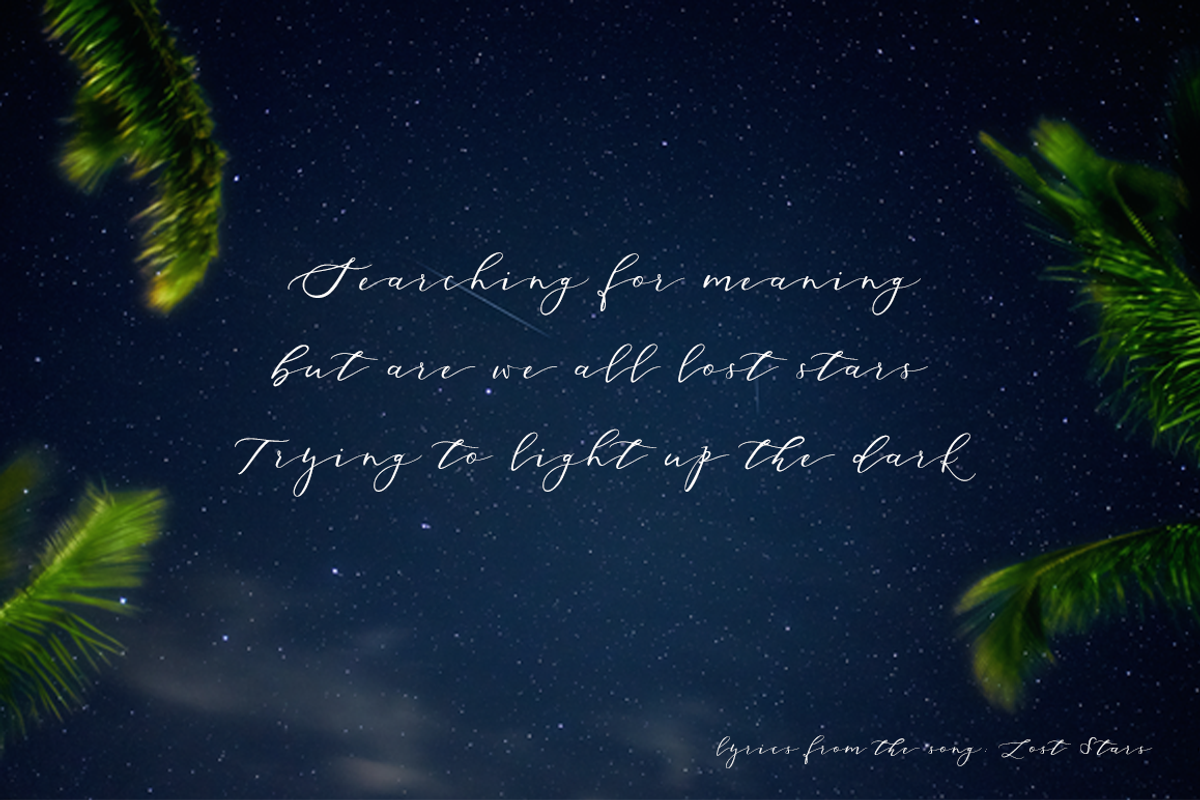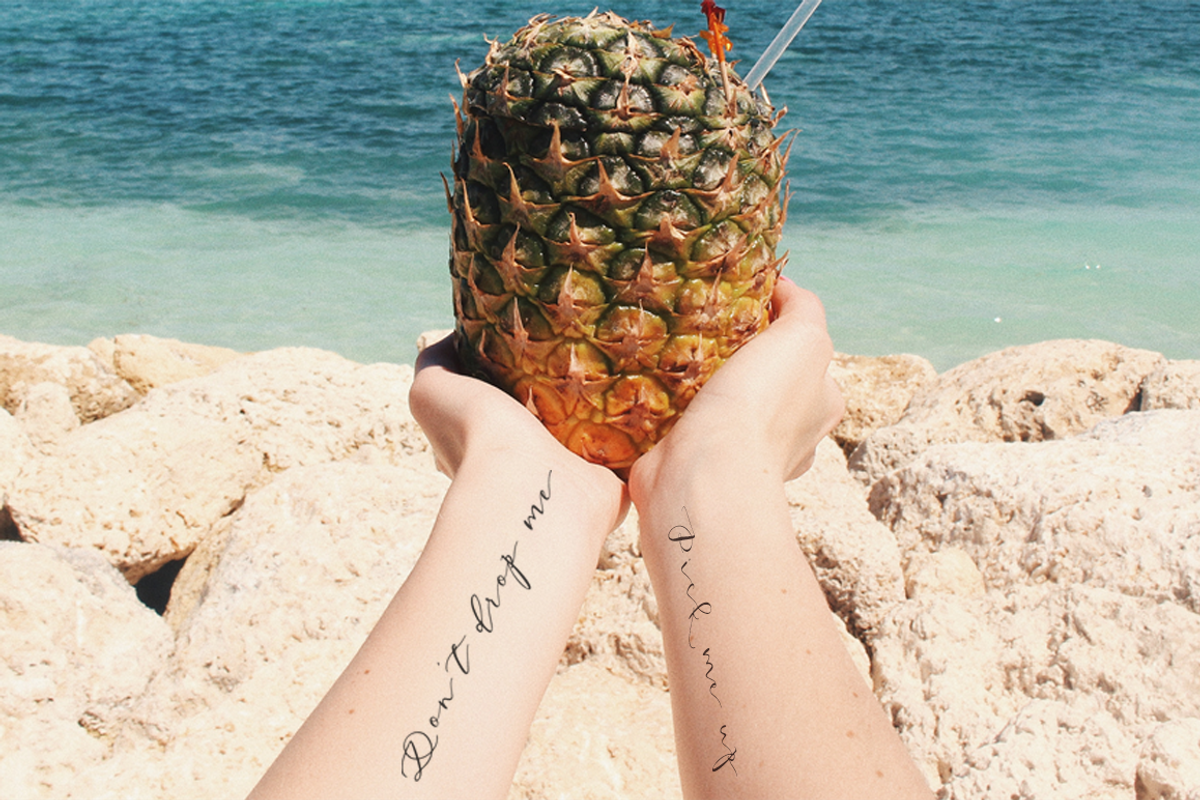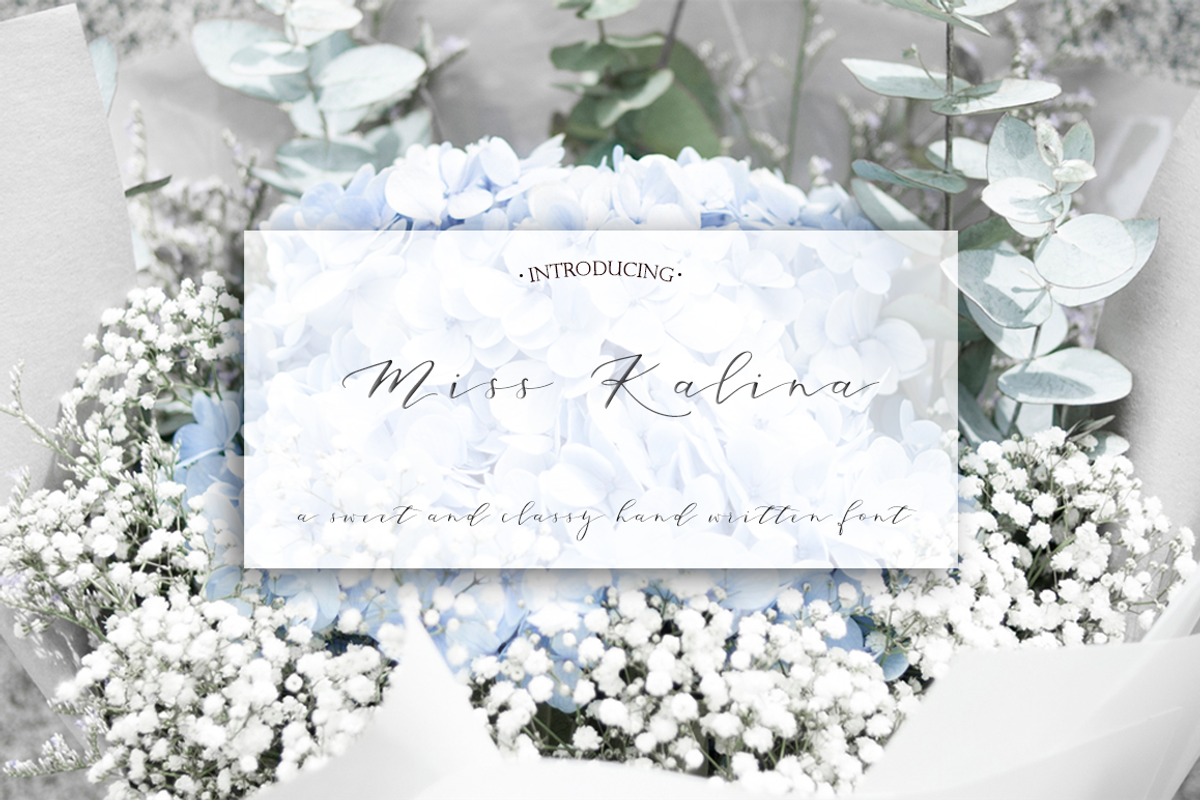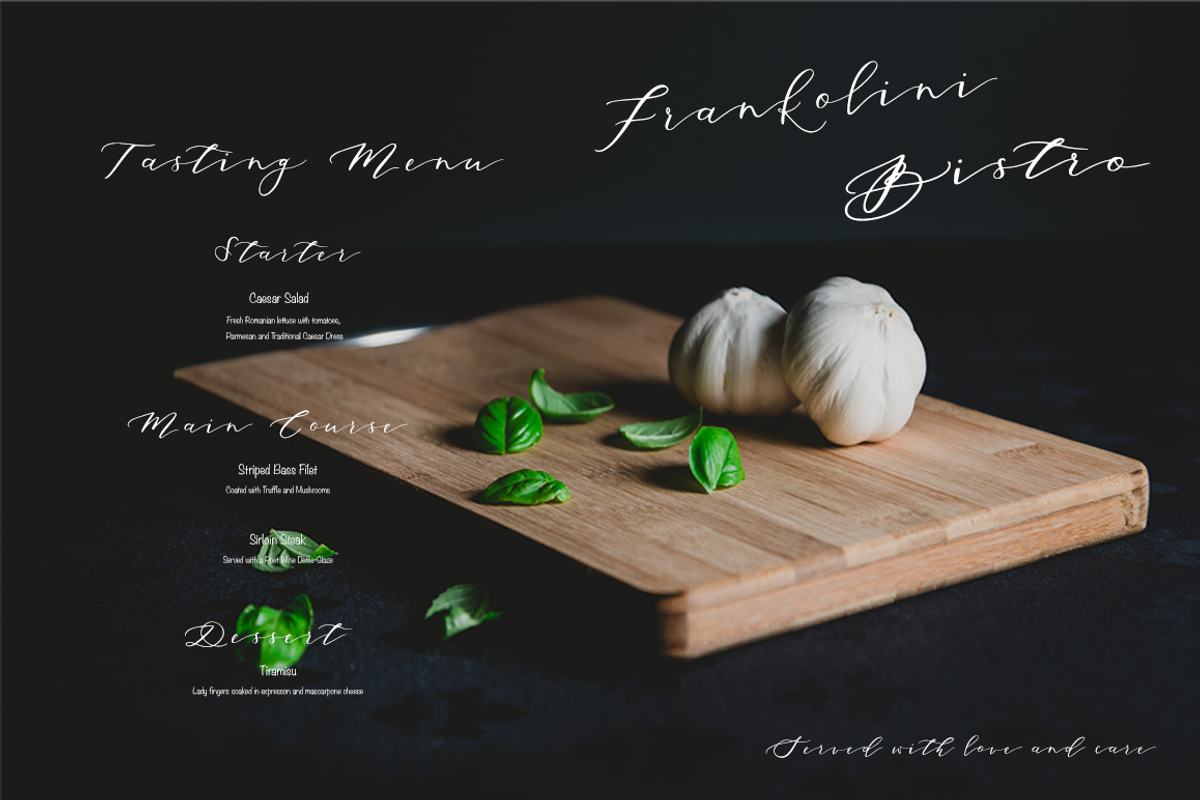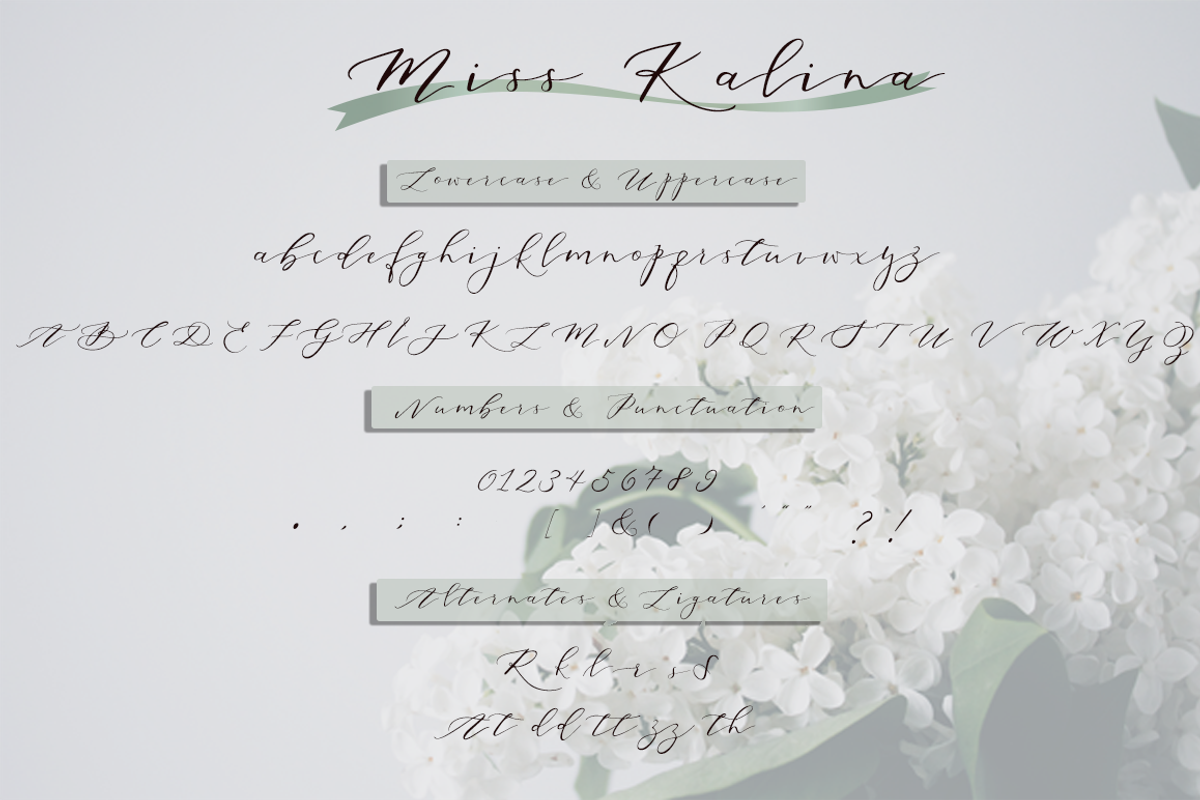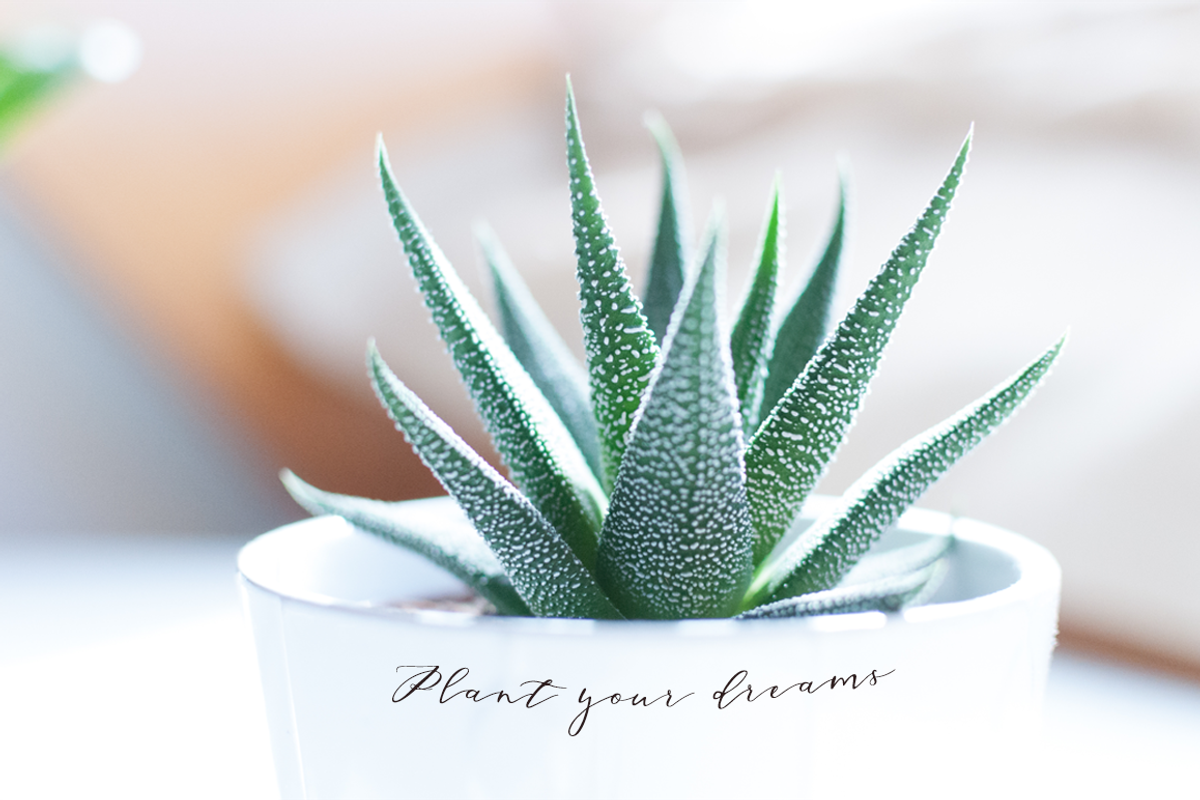
Miss. Kalina Script Font
Miss. Kalina Script Font by Sala.Ink is a font selected for branding, posters, packaging, typography.
- Kalina has a variety of unique, coded features to create compelling, handmade outcomes: 6 stylistic alternates, 4 discretionary ligatures an
Why Miss. Kalina Script Font is worth a look
Miss. Kalina Script Font by Sala.Ink fits naturally into Branding, posters, packaging, typography.